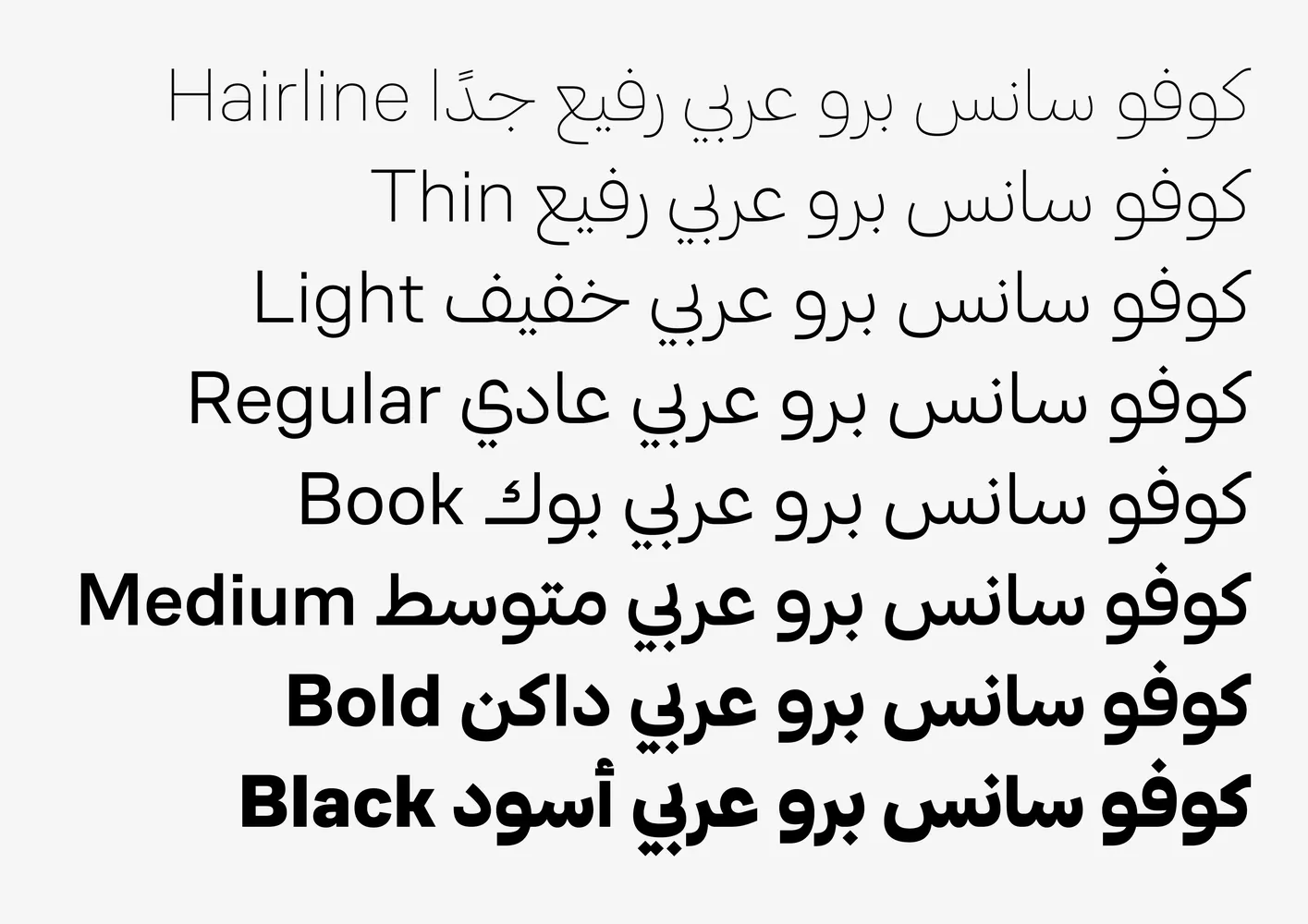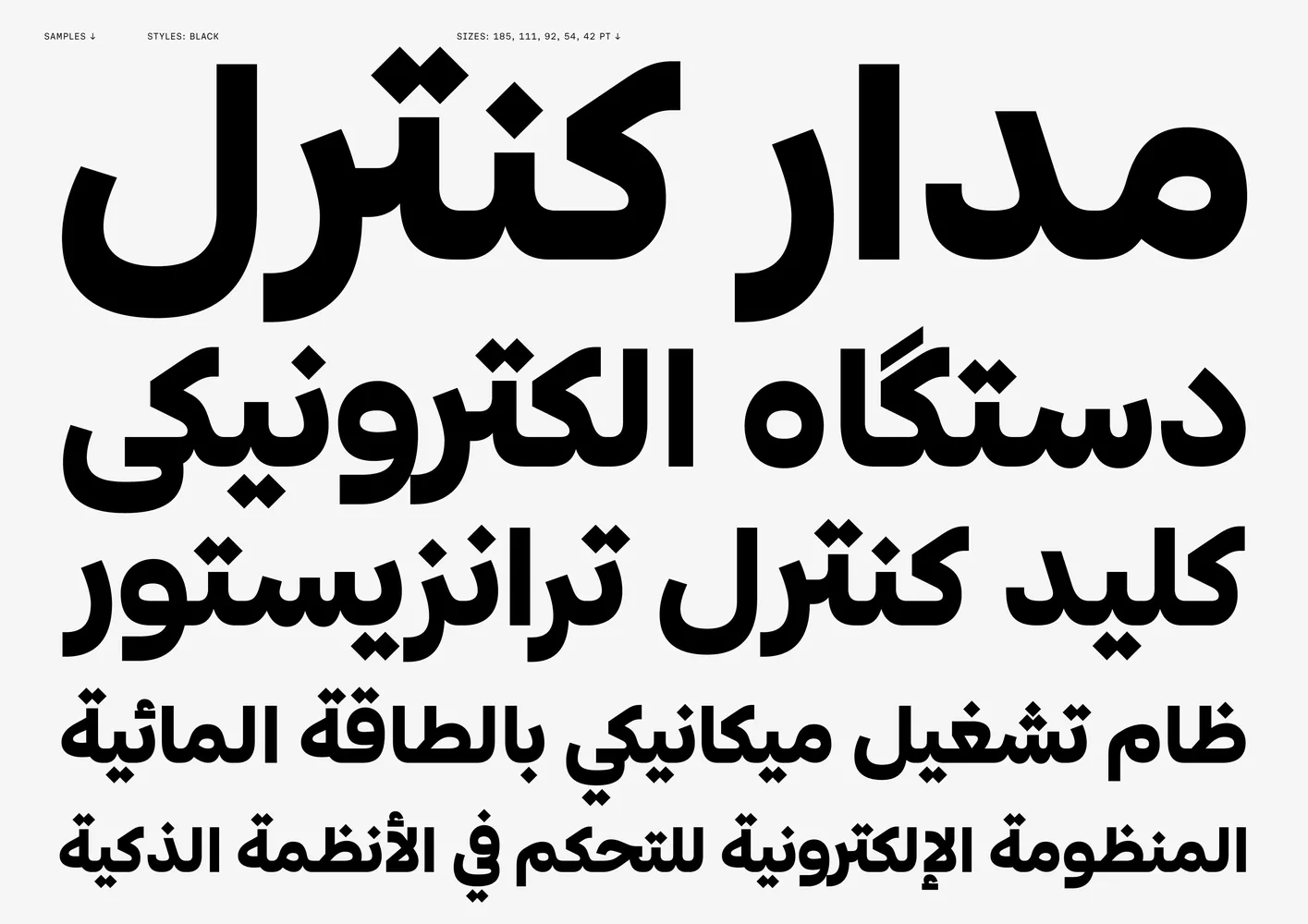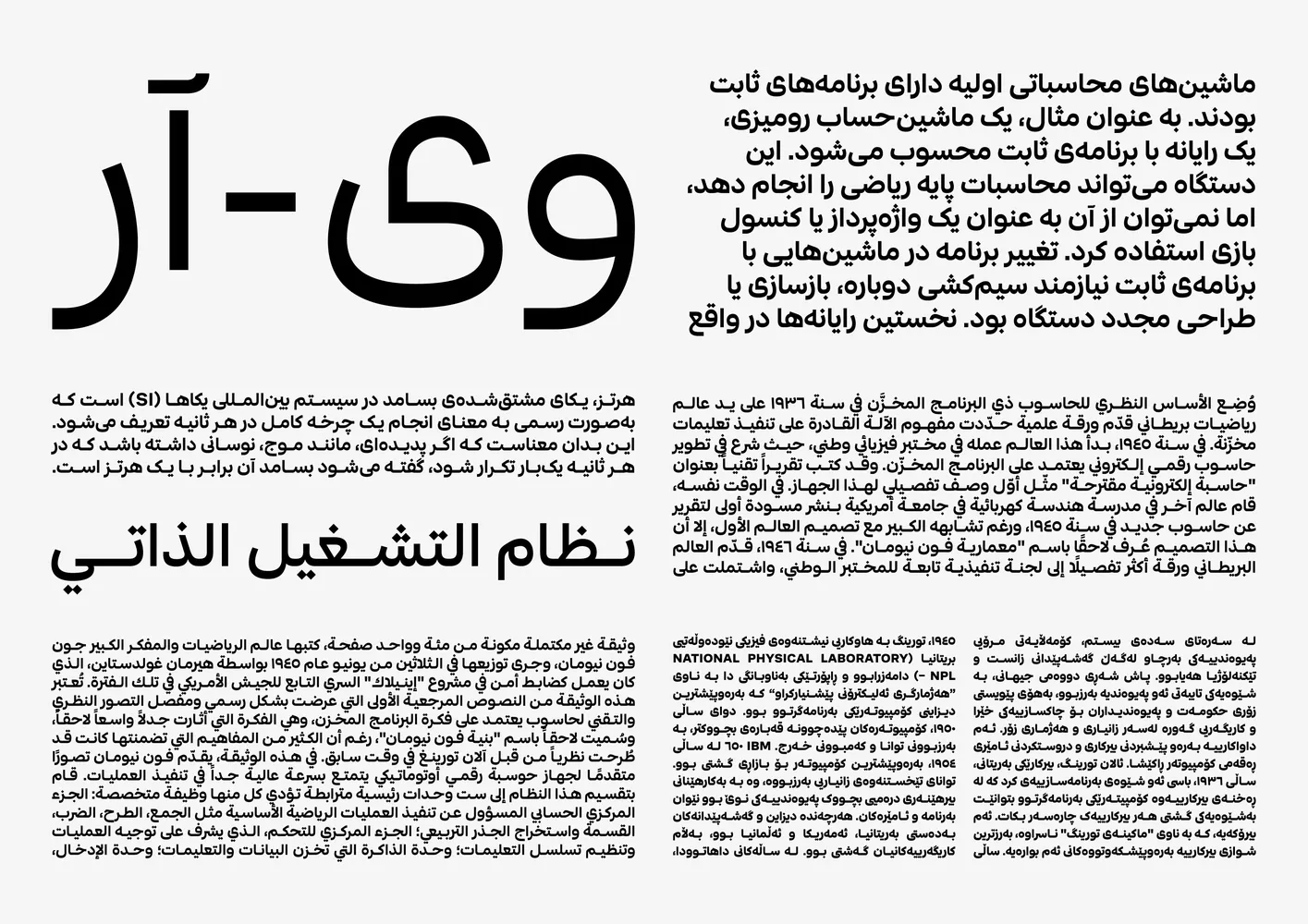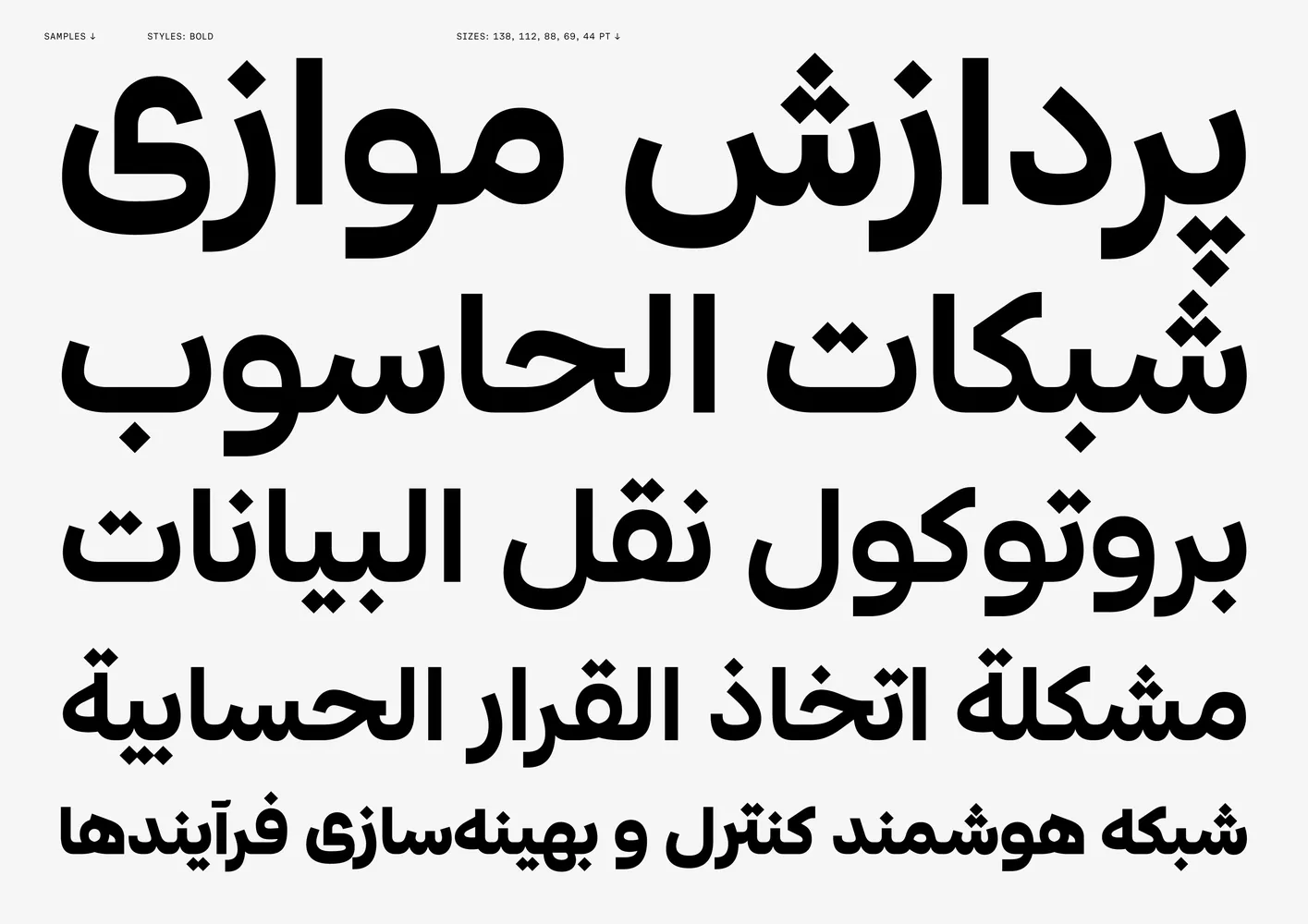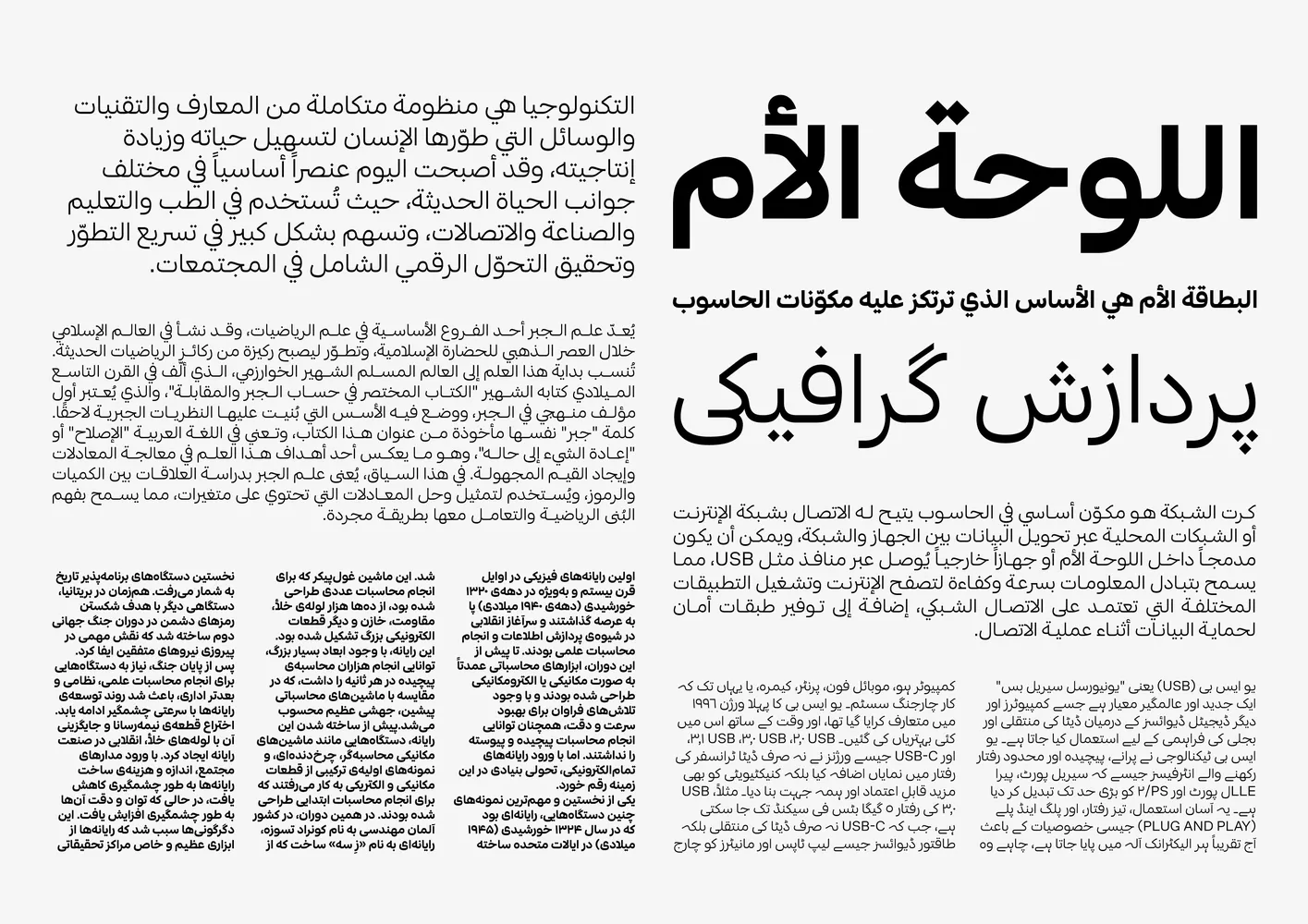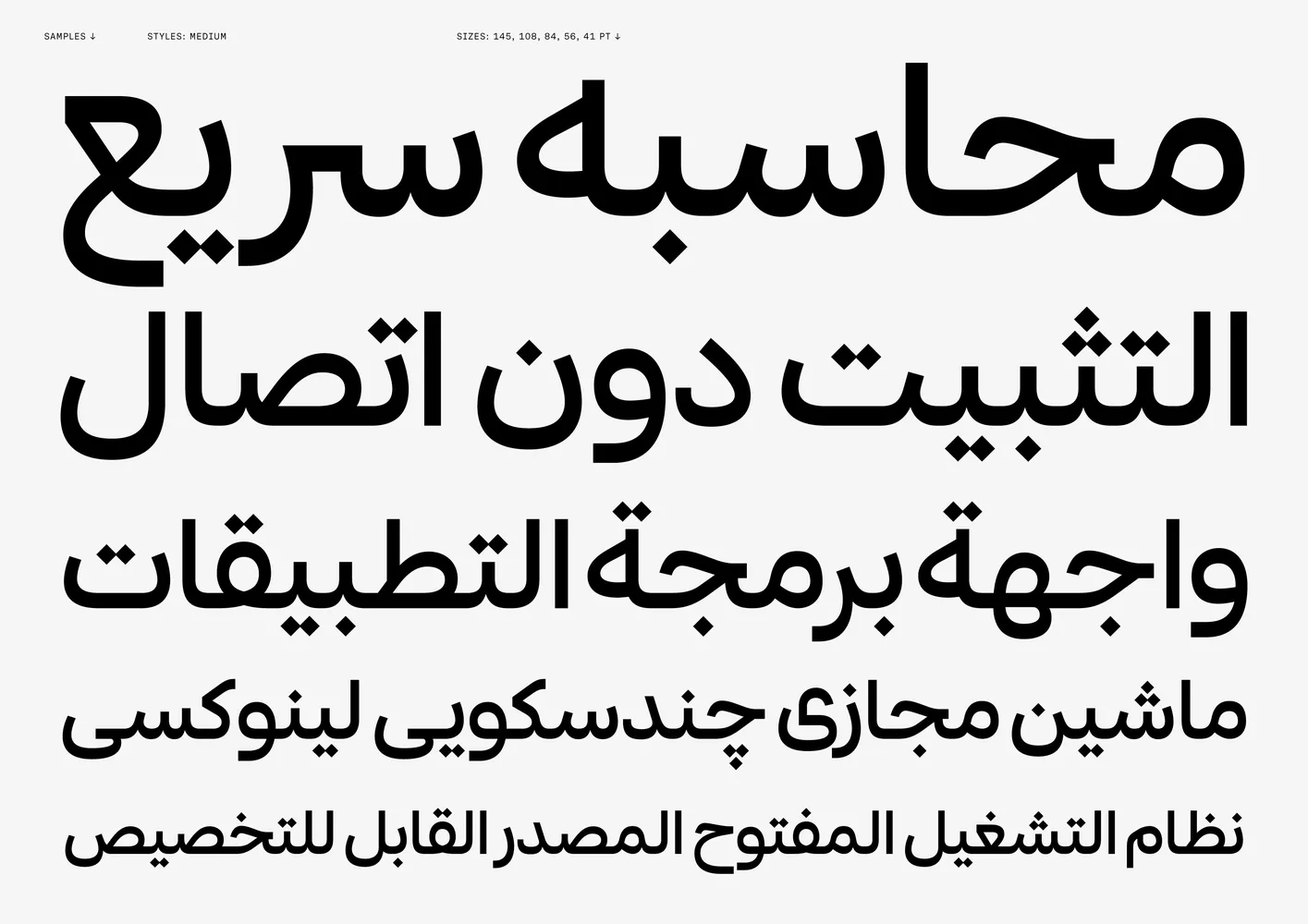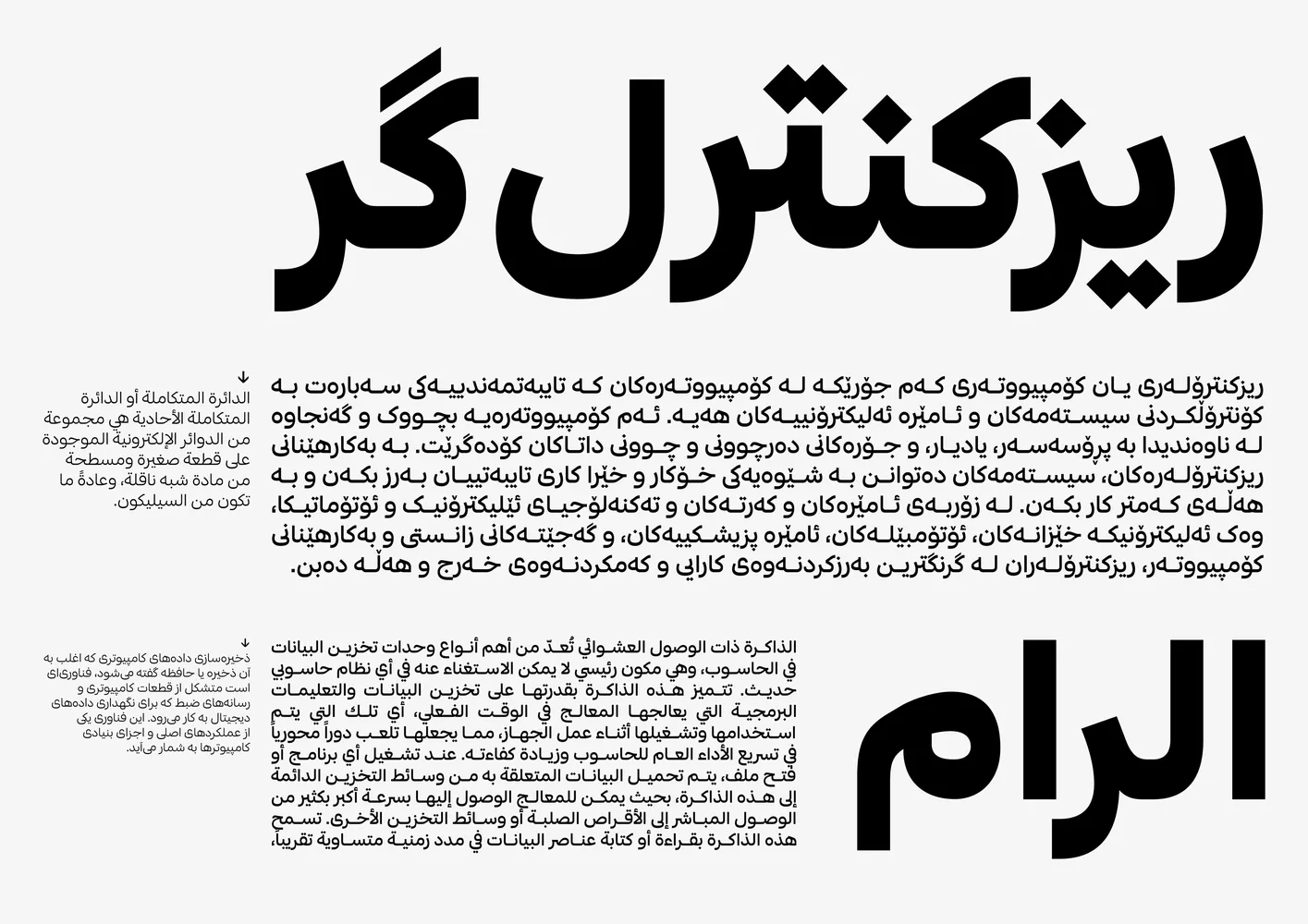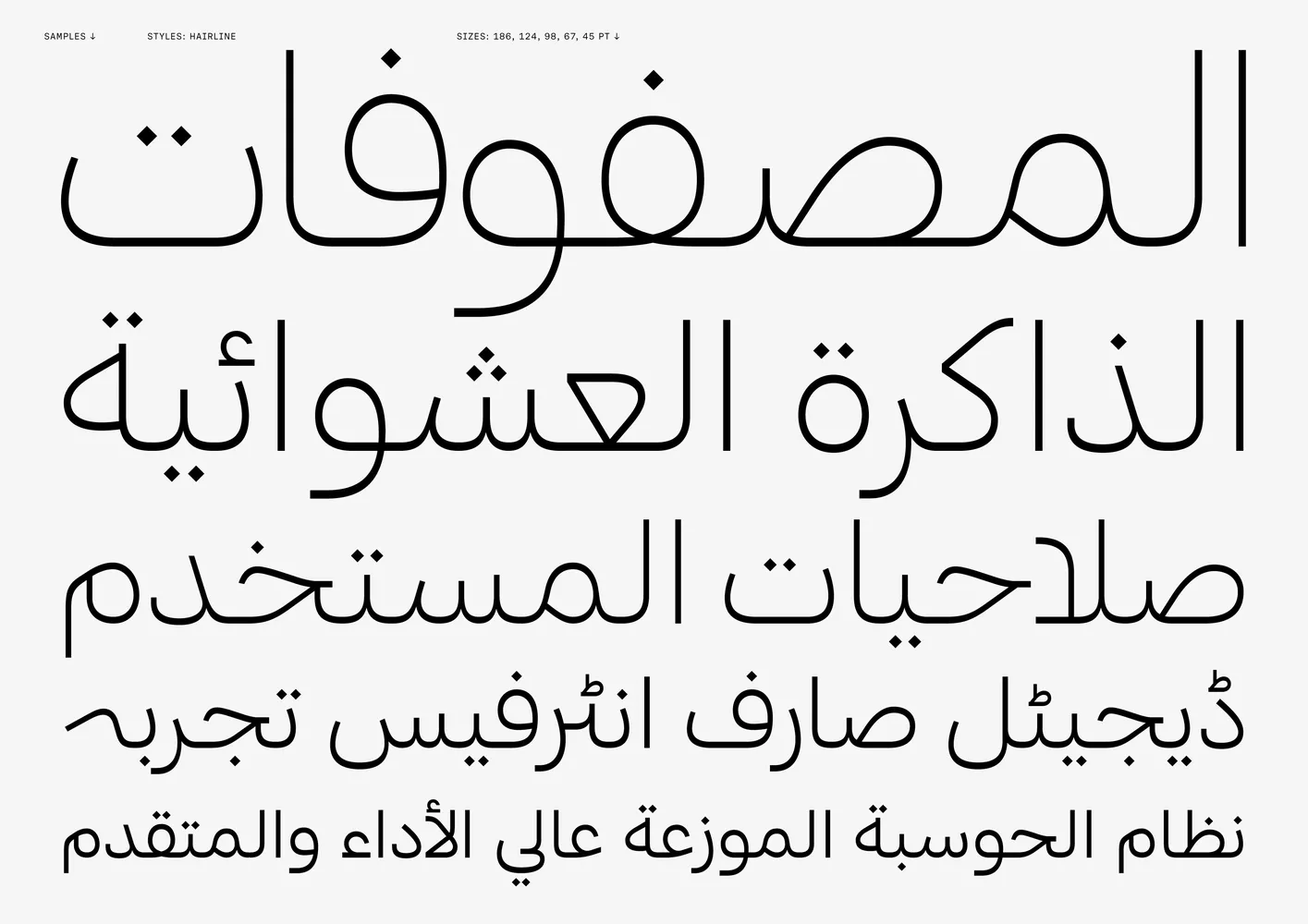
CoFo Sans Pro Arabic Variable
سانس برو عربي
CoFo Sans Pro Arabic
About CoFo Sans Pro Arabic
CoFo Sans is a clean sans serif with a soul. It’s simple, but not bland. Built on a balance of rational structure and expressive detail, it avoids strict geometry or a single model. Slight squareness and a hint of industrial tone give it clarity without losing personality.
The new version of CoFo Sans Pro offers eight carefully drawn weights. It comes with our largest character set so far: Extended Latin, Cyrillic, Vietnamese, and now Arabic. The Arabic extension follows its own traditions while keeping the overall tone of the family.
Designed with digital use in mind, CoFo Sans Pro works across screens, from interfaces and apps to longer text. Its structure is built to grow, with future support planned for scripts like Devanagari, Hebrew, Georgian, and Armenian. It’s a versatile multilingual typeface with just the right amount of personality.